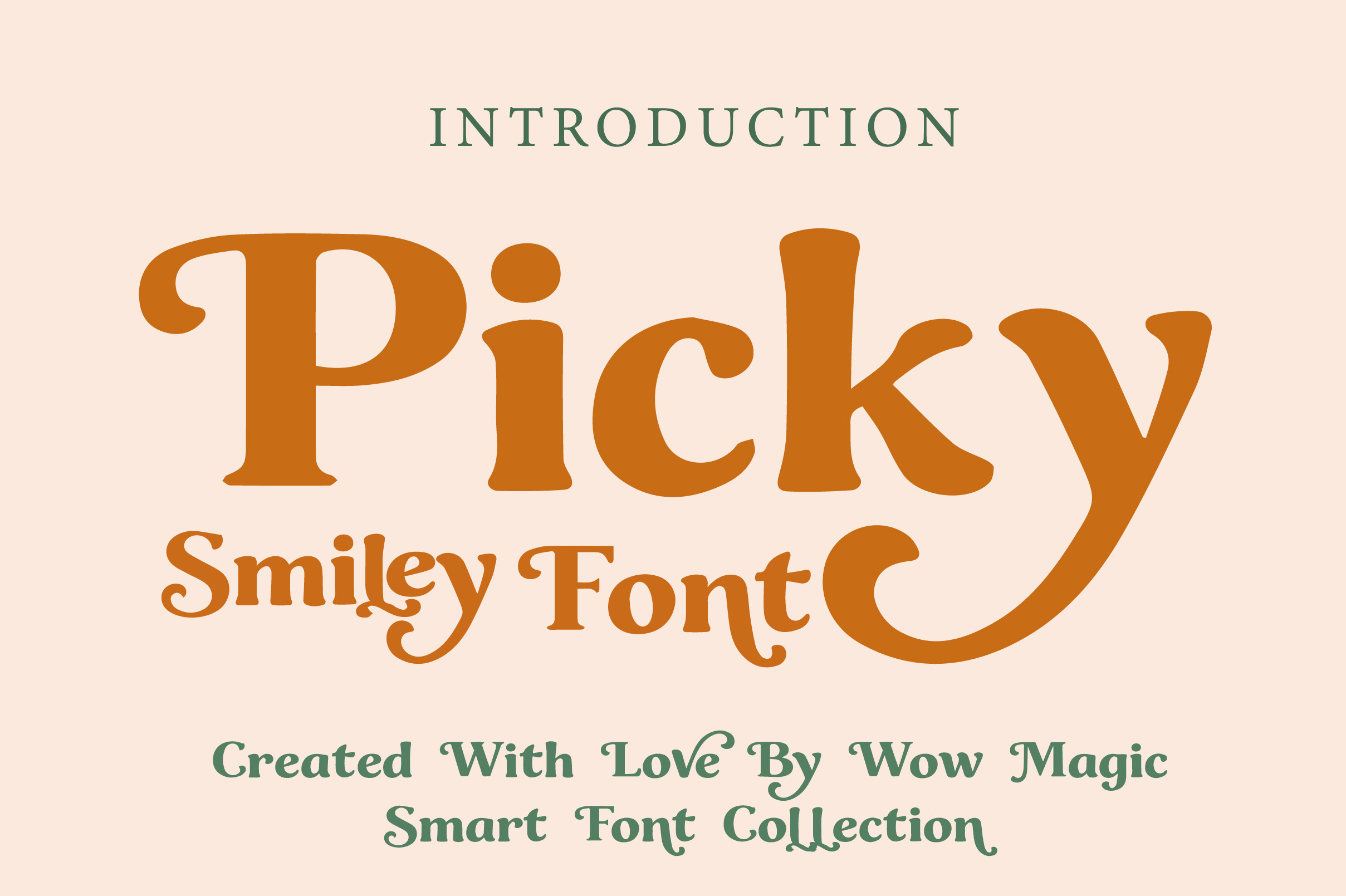
Picky Smiley Font
Picky Smiley Font is a playful retro-inspired display typeface with charming curves, bold serif details, and whimsical swashes that bring personality to every letter. Its expressive shapes and decorative terminals create a cheerful vintage feel, making it perfect for designs that need warmth, fun, and standout character.
The font blends nostalgic elegance with a lighthearted twist, giving it a unique visual style that works beautifully for branding, packaging, posters, invitations, logos, social media graphics, and creative headline projects. The flowing curves and smile-like details add an energetic and friendly mood while keeping the overall look stylish and memorable.
Picky Smiley Font is ideal for designers who want a typeface that feels joyful, decorative, and full of retro charm. Whether you're creating playful branding or eye-catching display text, this font adds a sweet and expressive personality to your work.